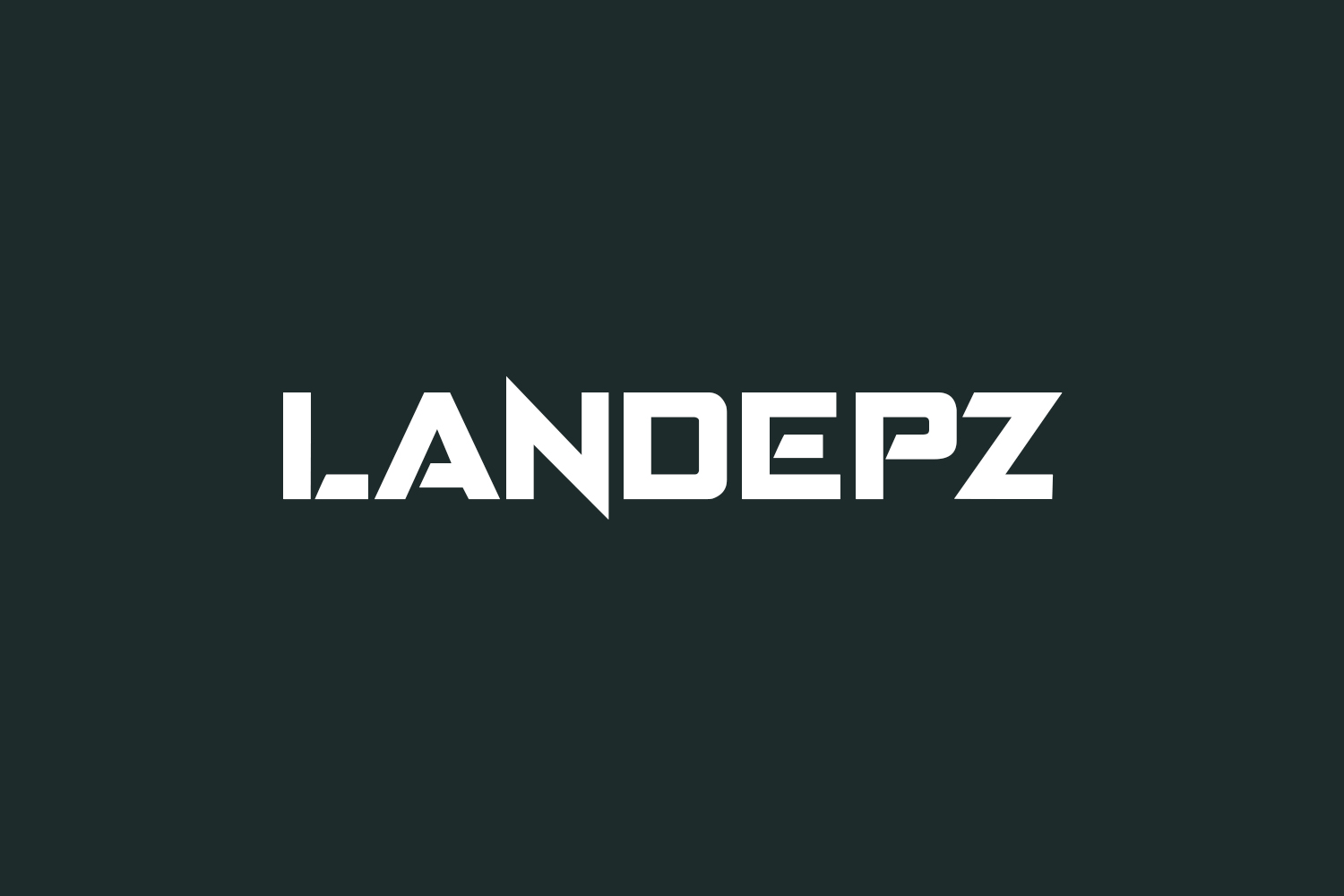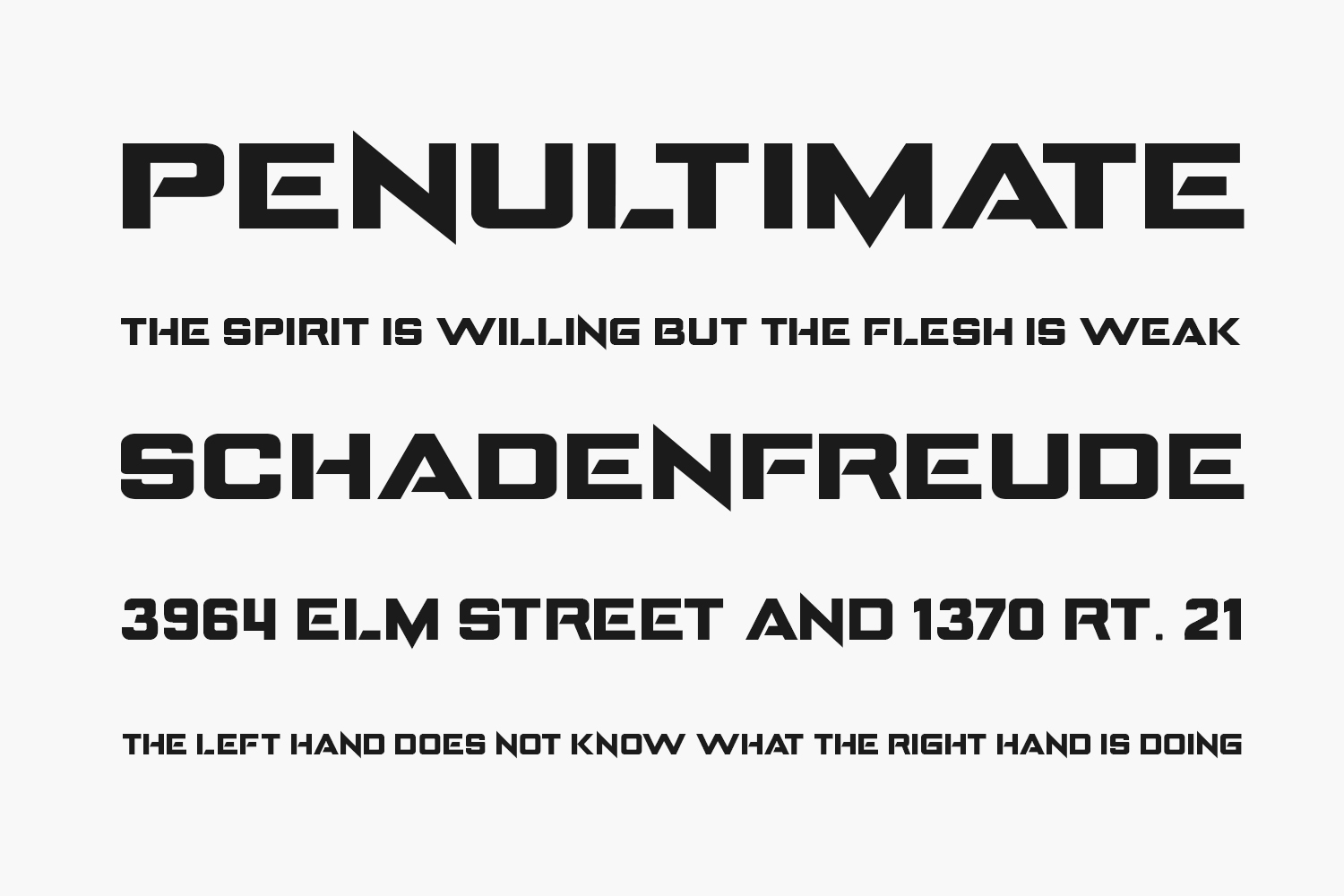
Landepz Free Font Family is a strong lettered, thick and rough textured display font. Add it confidently to your favorite creations and let yourself be amazed by the outcome generated. Landepz Free Font Family was designed by Zamjump and is free for personal use only. Please purchase the full version for commercial use.